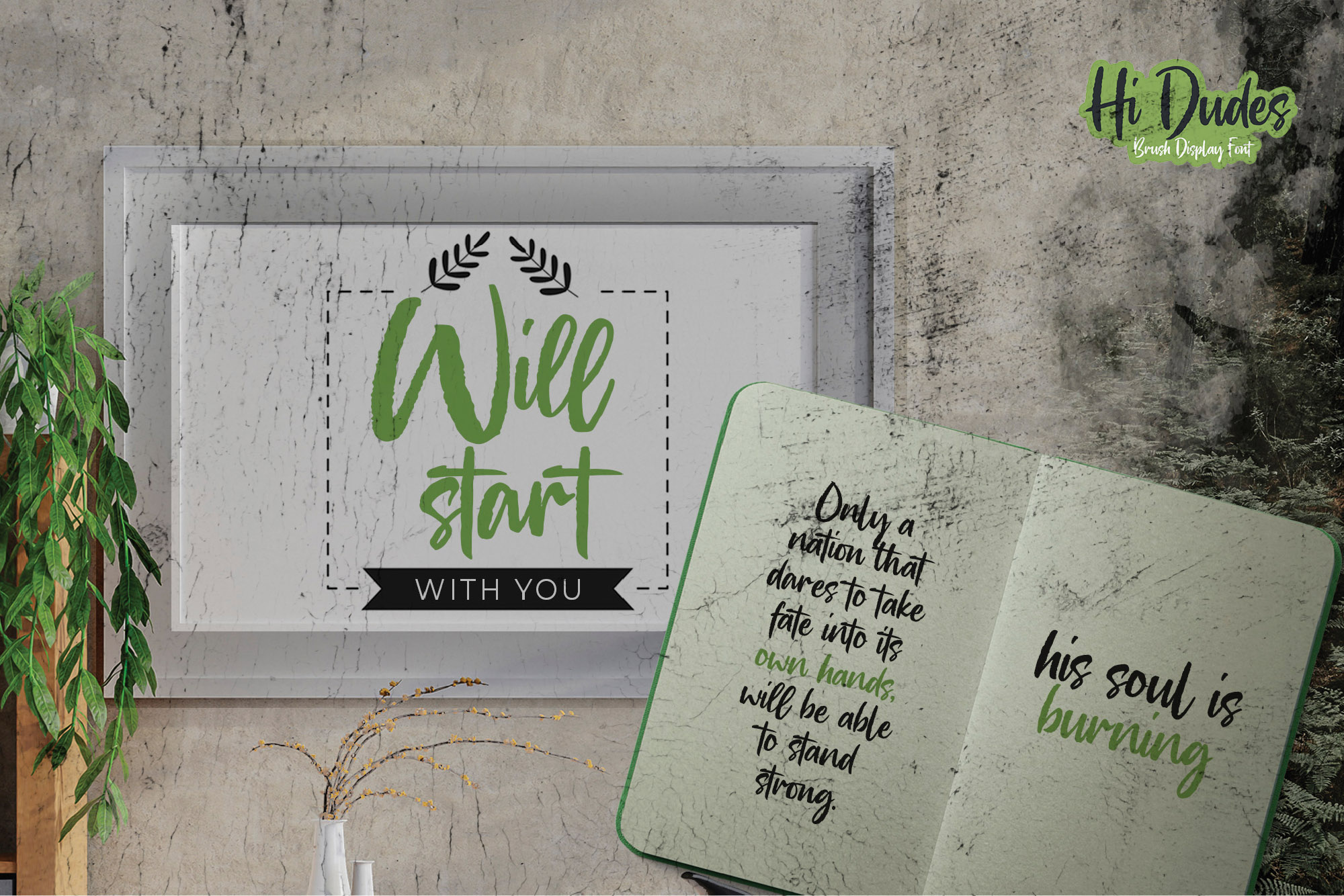
Hi Dudes – Brush Display Font, modern style and dramatic movement that is written casually and quickly.
The best for labels, poster, project designs look modern, authentic and fun. It’s perfect for labels, quotes, posters, DIY projects, branding, packaging, greeting cards, websites, photography overlays, signs, scrapbooking, tags and so much more! That is why Hi Dudes has a textured, and unique characteristic more natural look. You can activate 24 Ligatures glyphs OpenType panel.